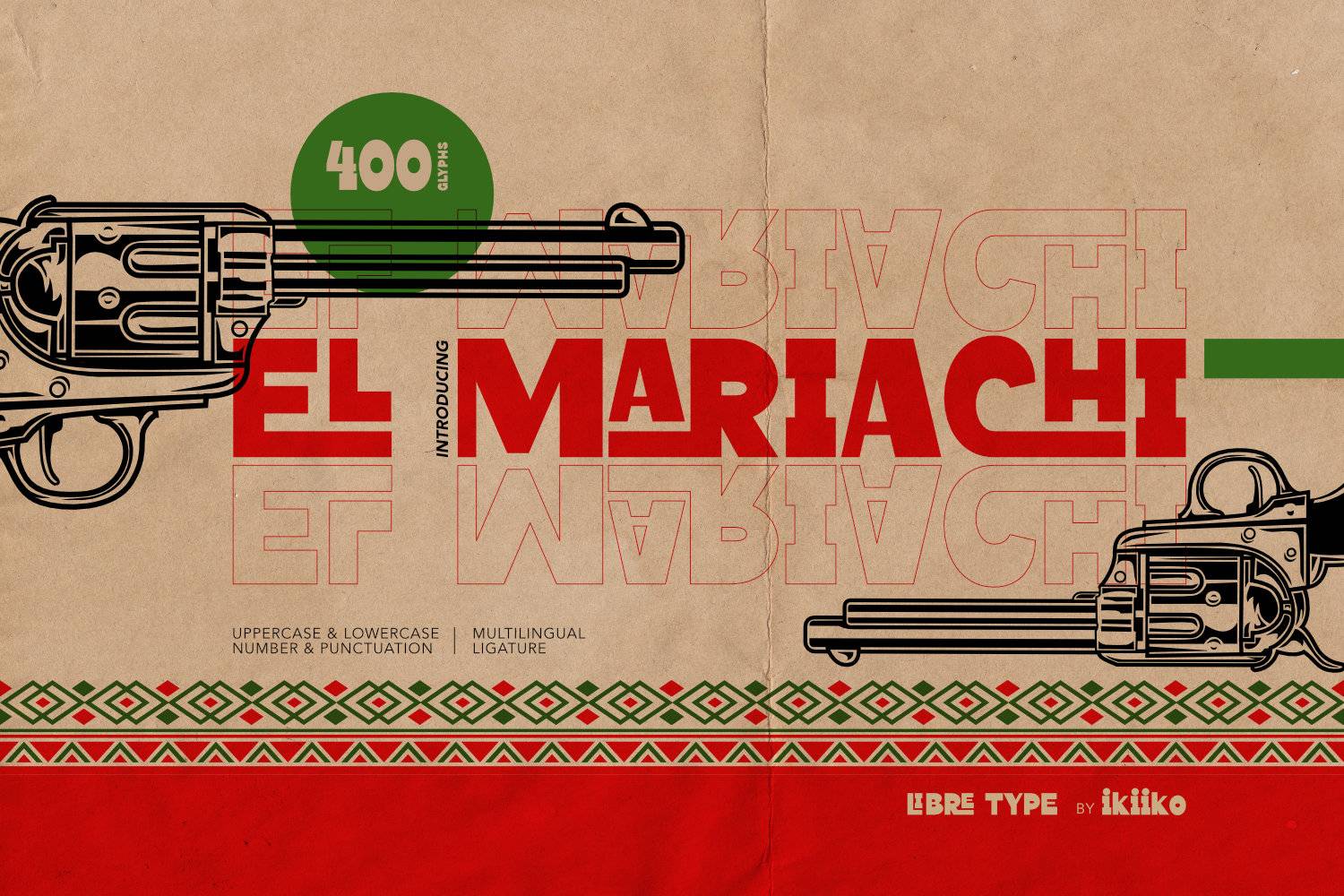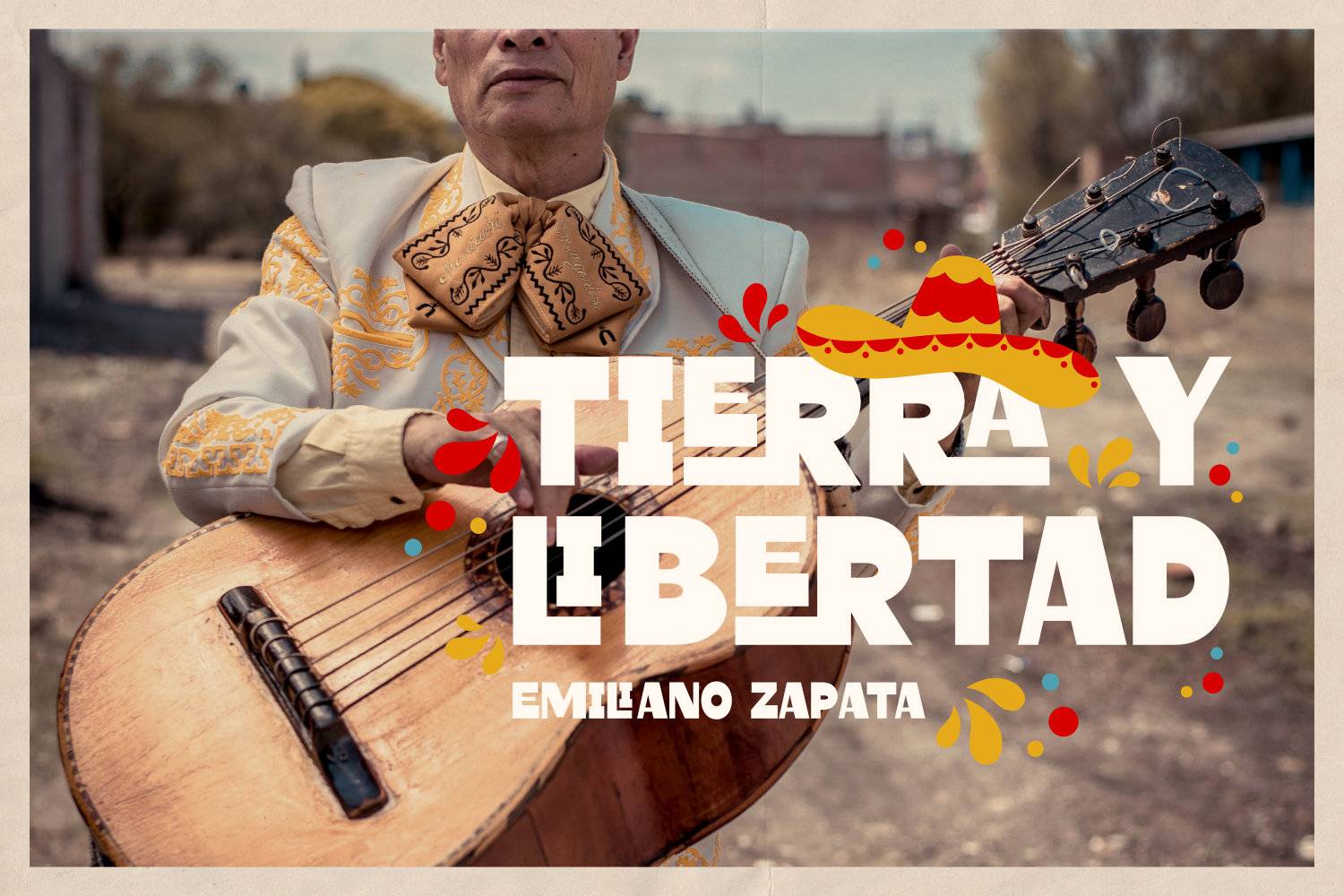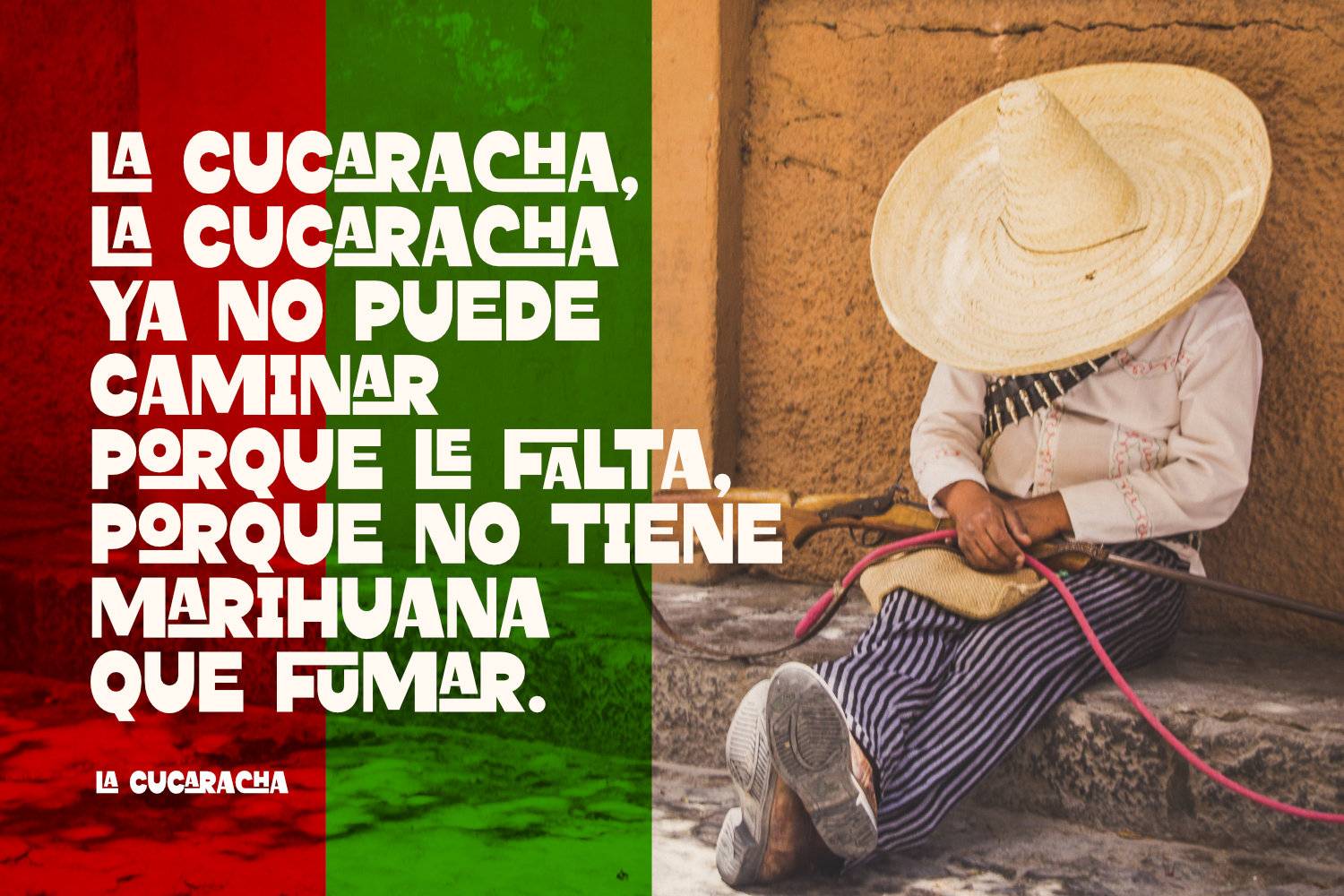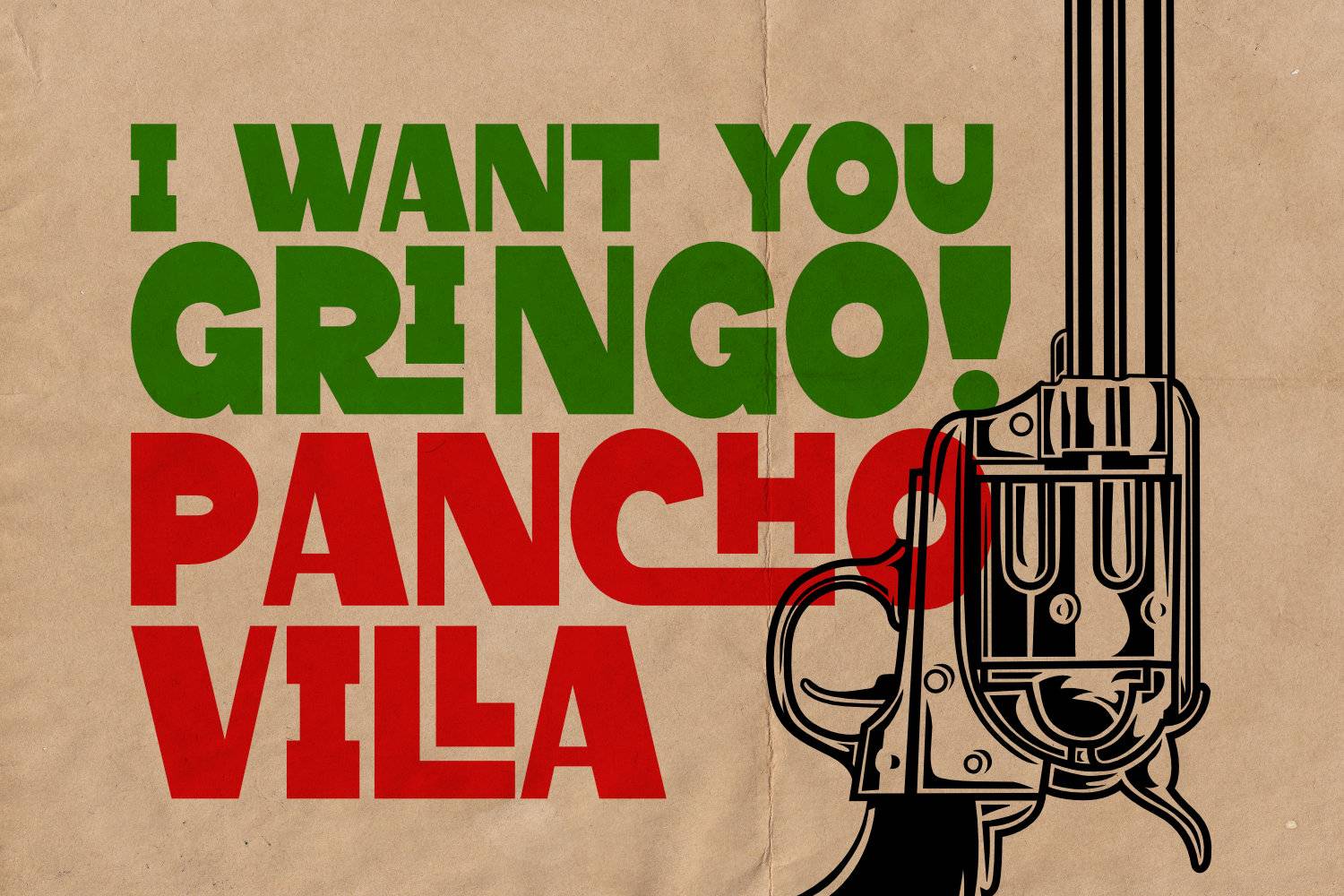
El Mariachi is a bold, heavy sans-serif font with a playful and robust character, featuring strong geometric shapes and a slightly condensed width. Its thick strokes and solid presence make it ideal for eye-catching headlines and branding that aims to convey confidence and fun, making it perfect for posters, logos, and packaging with a lively, vibrant feel.
El Mariachi Font
About El Mariachi Font
| Font family | El Mariachi Font |
| Designer | Andhika Pradana, Wahyu Eka Prasetya |